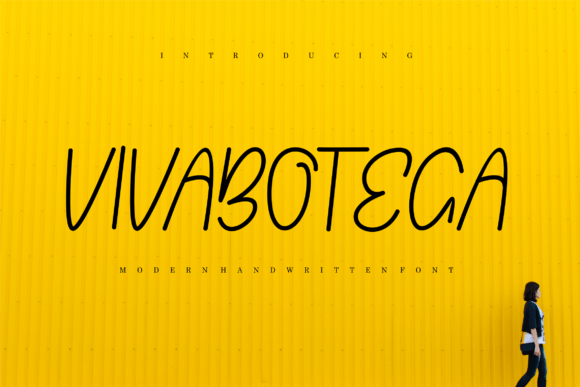
Step into the realm of captivating creativity with Vivabotega, a script font family that exudes elegance and authenticity. Handcrafted by the maestro, kalingga.albert, Vivabotega is not just a font; it's a gateway to visual enchantment. Dive into a world where your designs transcend the ordinary and embrace the extraordinary.
Unleash your imagination and let Vivabotega's graceful strokes dance across your logos, branding projects, t-shirt designs, and esports endeavors. Its versatility knows no bounds, allowing you to weave a tapestry of visual stories that leave an indelible mark on your audience.
With Vivabotega, you'll discover a font that commands attention without overpowering your designs. Its delicate yet confident presence adds a touch of sophistication to any project, inviting viewers to explore the depths of your creativity.
Whether you're a seasoned designer or just starting your artistic journey, Vivabotega is your perfect companion. Its user-friendly nature ensures a smooth and enjoyable experience, empowering you to transform your ideas into visual masterpieces.
Join the ranks of creative visionaries who have chosen Vivabotega as their font of choice. Let your designs stand out from the crowd, captivate your audience, and leave a lasting impression. Embrace the Vivabotega experience today and unlock a world of limitless design possibilities.